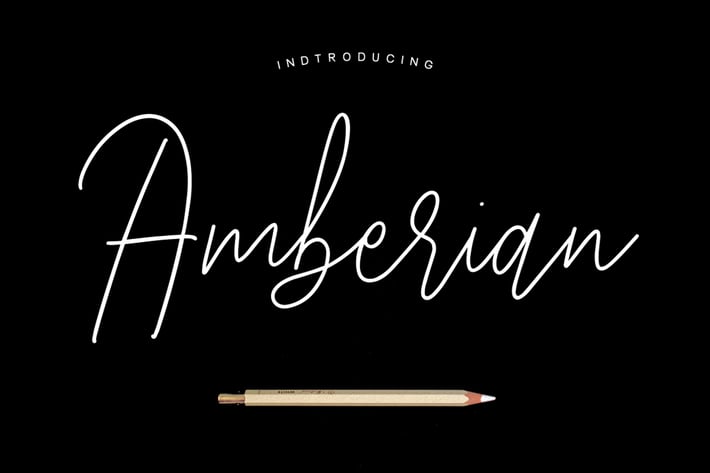
Amberian Font Signature
Give your designs an authentic handcrafted feel. "Amberian Font" is perfectly suited to signature, stationery, logo, typography quotes, magazine or book cover, website header, clothing, branding, packaging design and more.